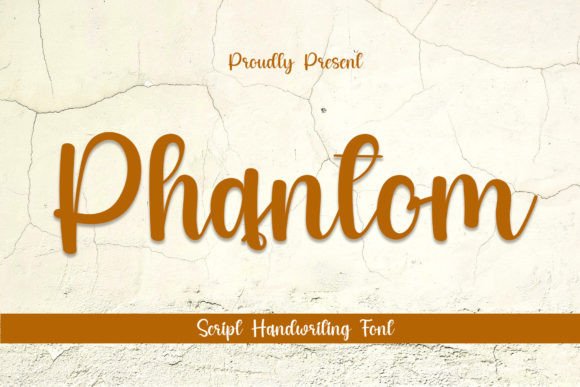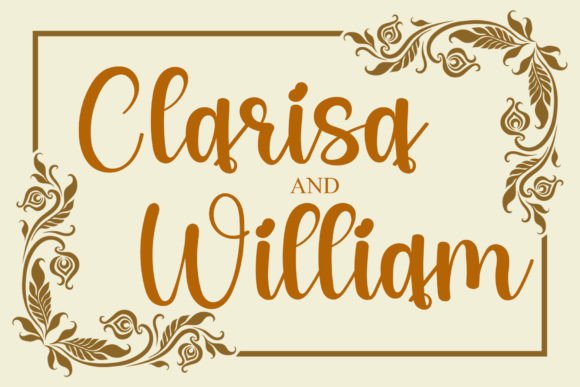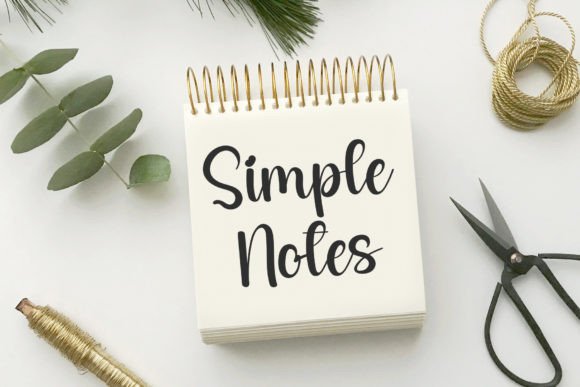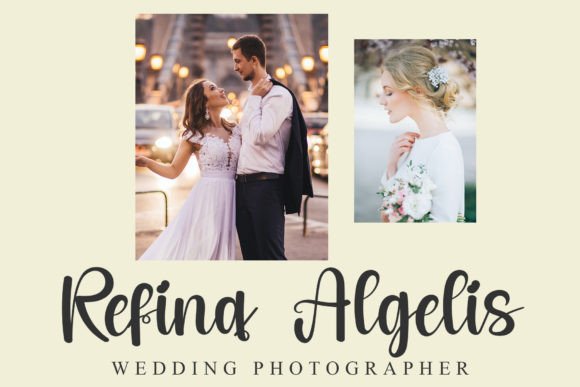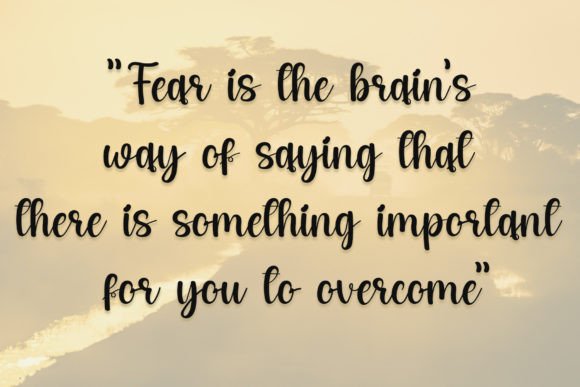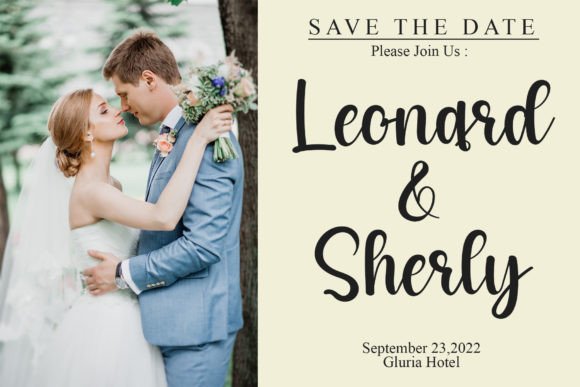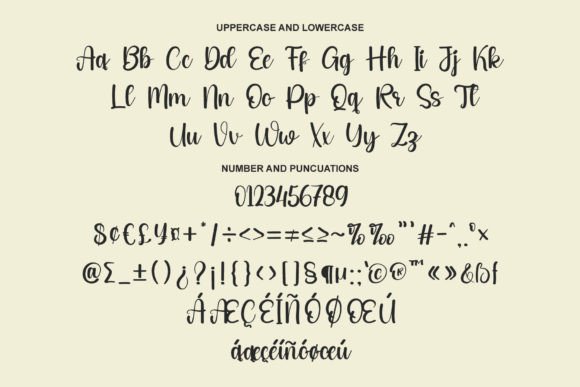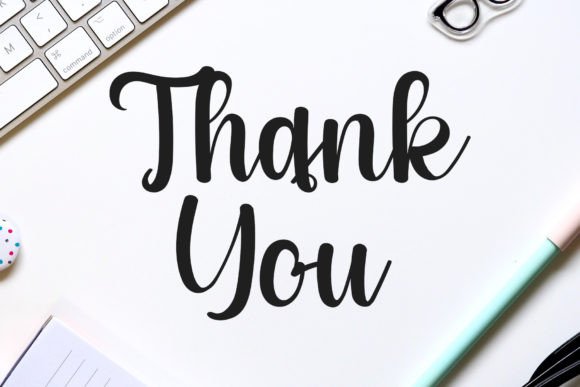
Phantom Font
About Phantom Font
“Phantom” is a captivating and sweet handwritten script font that possesses a unique and striking quality. This font has the power to infuse your design projects with a sense of luxury and sophistication, creating a truly stunning impact.
The allure of “Phantom” is in its distinctive and beautifully crafted characters. The font’s hand-drawn appearance and unique feel set it apart, making it a perfect choice for projects that demand a touch of elegance and personality.
One of the standout features of “Phantom” is its ability to make a lasting impression. It can elevate your designs to a new level of visual appeal, whether you’re working on branding materials, invitations, posters, or any other creative project. “Phantom” adds a luxurious spark that catches the eye and captivates the viewer.
Incorporating “Phantom” into your designs means you can confidently create visuals that exude a sense of refinement and beauty. This font has the power to leave a memorable mark on your audience and elevate your work to a level of sophistication.
In summary, “Phantom” is not just a font; it’s a design asset that can enhance your creative projects with its unique beauty and luxurious feel. Its stunning impact makes it a valuable addition to your design toolkit. Feel confident in using “Phantom” to add a touch of luxury and sophistication to your designs, and watch as it elevates your projects to new heights!